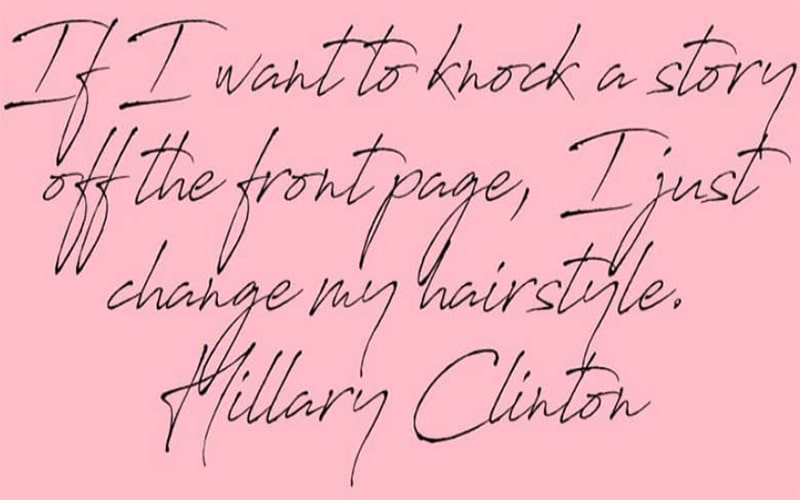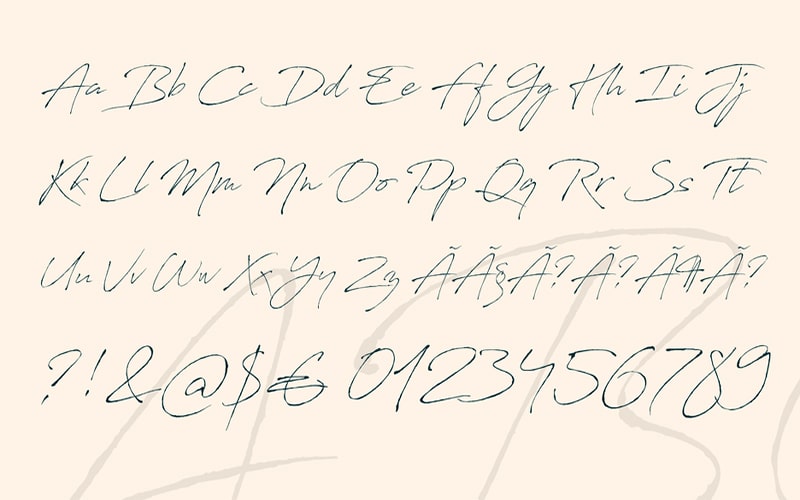
Antro Vectra Font Family is a Script, Handwritten typeface. This font was Designed and Published by Youssef Habchi for the first time.
The designer Youssef Habchi is from France. It was first seen on March 31, 2017. After a few months, it was updated on May 05, 2017.
The subfamily of this astonishing free Antro Vectra typeface is Bolder. This cursive and double-weight font consists of 175 defined characters and 187 glyphs count in number.
This beautiful and stunning font comes in two styles such as “Antro Vectra regular” and “Antro Vectra Bolder”. These styles give an interesting look to your projects.
Antro Vectra Font
| Font Name: | Antro Vectra Font |
| Style: | Handwritten, Script, Typeface |
| Font Designer: | Youssef Habchi |
This Fabulous Font family can be used to Design logos, Signatures, Website Headers, Magazines, Book Covers, Branding, and many more.
This amazing free version font is available in all lowercase and uppercase letters, a few numbers, and some special characters as well.
Let’s have a single look below to view the different character maps contained in this font. That makes it perfect to design your various projects.